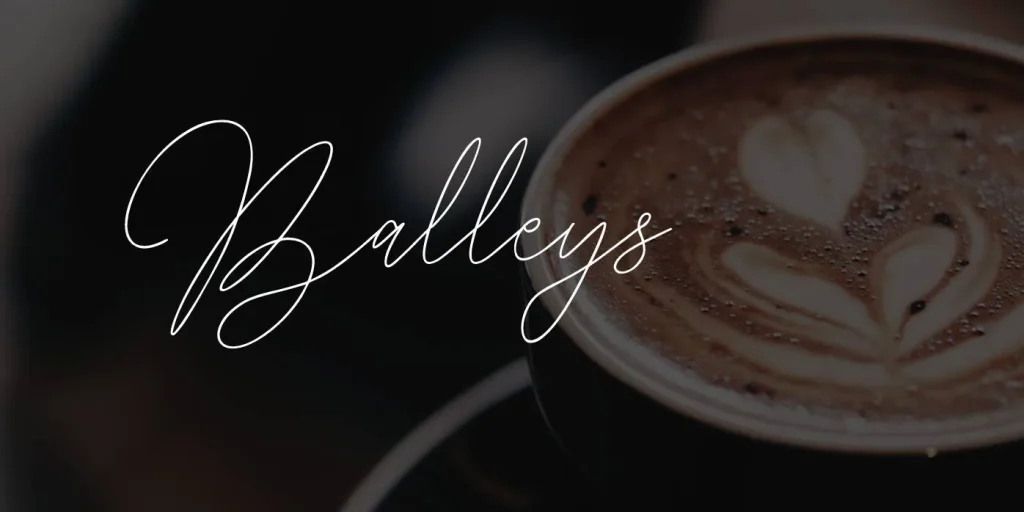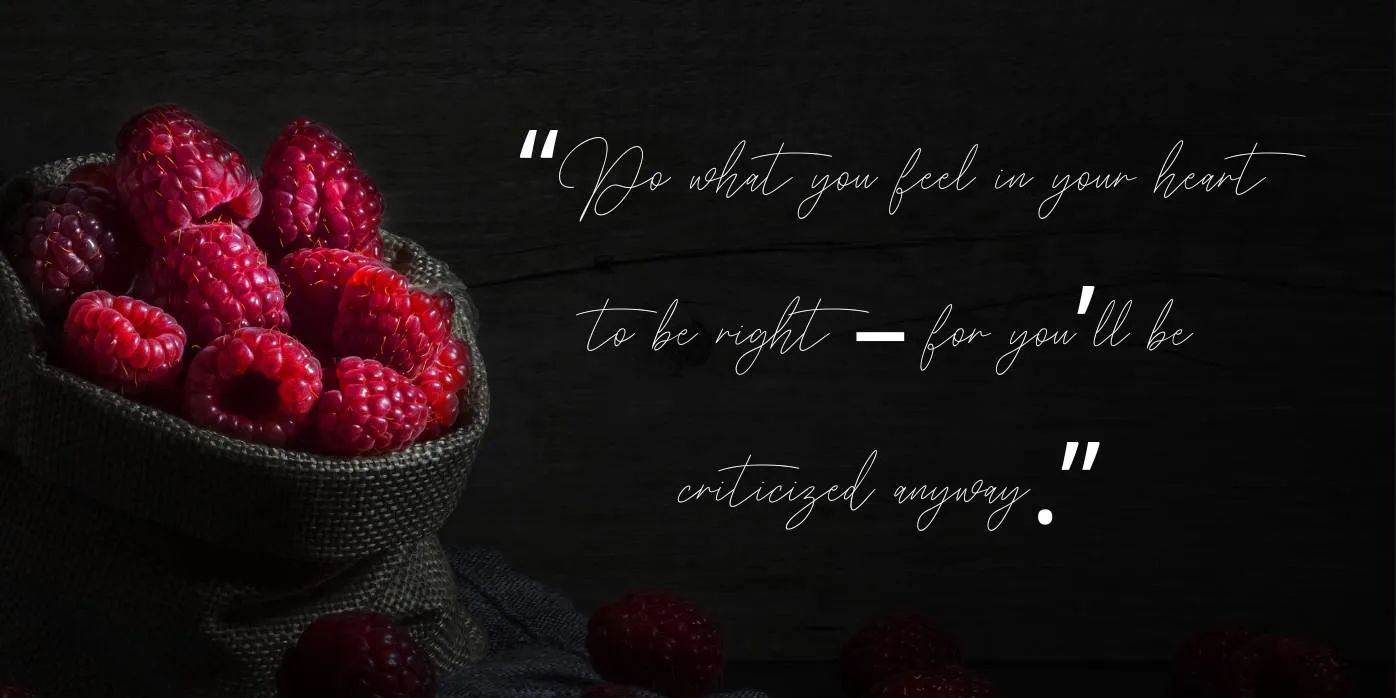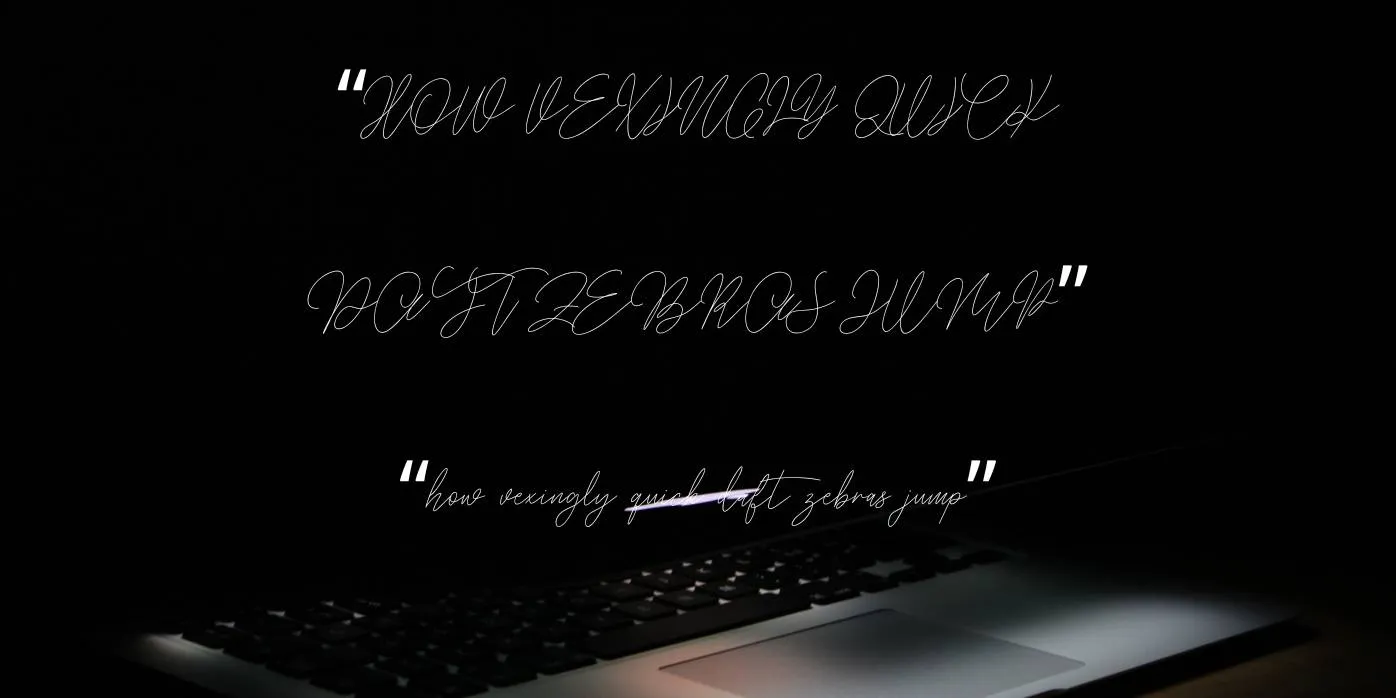
Balleys Font
Balleys Font is a handwritten typeface that was created by Gilang Maulana and released by Maulana Creative. This typeface has a handwritten and natural appearance which makes it an ideal choice for everyone.
If you’re a professional and just start your career as a designer then this typeface is the best idea selection for you to style your design to stand out and be unforgettable. This typeface can give your design/project a trustworthy handmade or handcrafted touch.
This typeface is suitable for magazines, book covers, website design, headers, branding, clothing, quotes, logo, stationery, signature, flyers, themes, menus, backgrounds, party themes, invites, wedding cards, and so on.
Balleys Font Motivation and Usage
This lettering style is motivated by black letters, created with a contemporary impression but it still appears durable and unique. Its unique swashes, ligatures, and alternate characters make it different from other typefaces.
This typeface can make your design more attractive and excellent; this amazing typeface is available in one weight Regular, this typeface also contains 78 handwritten characters including capital case, small case, numbers, punctuations, and some special characters.
This typeface is very easy to use to make your design strong and give it a stylish theme. It also supports multilingual characters that can be applied in numerous global languages. If you desire to make your design project more captivating, I recommend pairing this font with a unique typeface such as the poligon font.
This typeface is flawless for the making of tattoos, logos, music album covers, labels, packaging, and those project that wants a stylish and handwritten appearance.
Balleys Font Family Appearance
Name Balleys Font
Designer Gilang Maulana
Style Handwritten
What font is Balleys Font?
This typeface is a handwritten typeface that was created by Gilang Maulana and released by Maulana Creative.